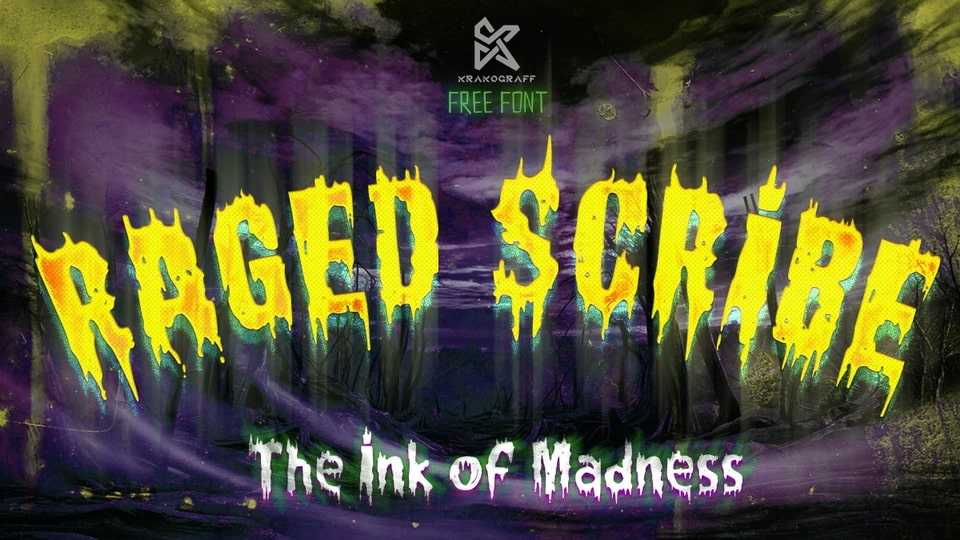
Download Rage Scribe font, a sinister and suspenseful display typeface. Inspired by horror and thriller movies, this free font will give your creations an eerie edge.
Designer: Krakograff